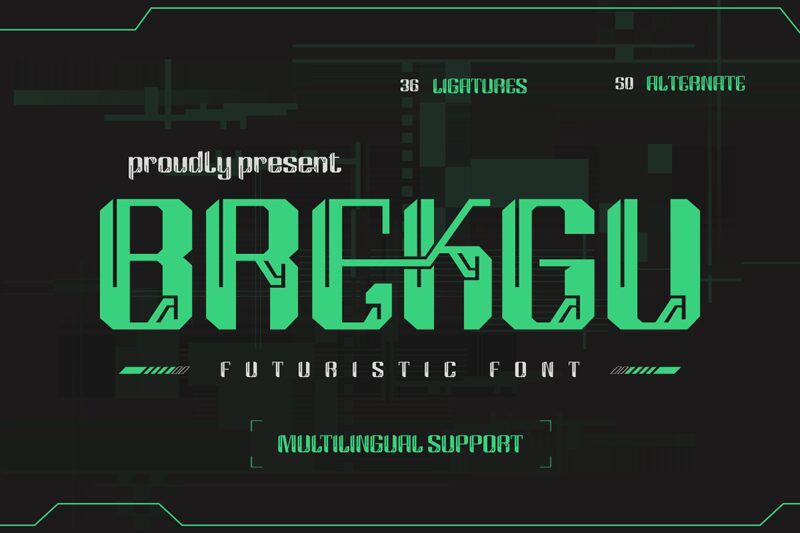
Brekgu font's futuristic style and condensed letters make it an artistic tool that enacts modernity wherever it’s used. The display font from Twinletter has a contemporary feel with high-tech aesthetics evident in its overall minimal yet sharp presentation. Designed for projects that embody the modern industrial influence, Brekgu will change the direction of your journey today.